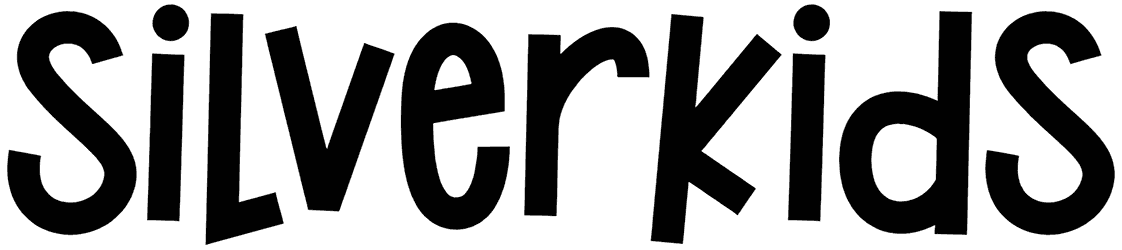
Silverkids Font
A cartoon font, such as Silverkids, would be the true solution for elevating artwork like posters, illustrations, book covers, logos, and business cards to a higher level. Since its characters are a little bit tilted and crooked, you can instill a sense of love, grunge, disorder, and cheer in the audience’s minds.